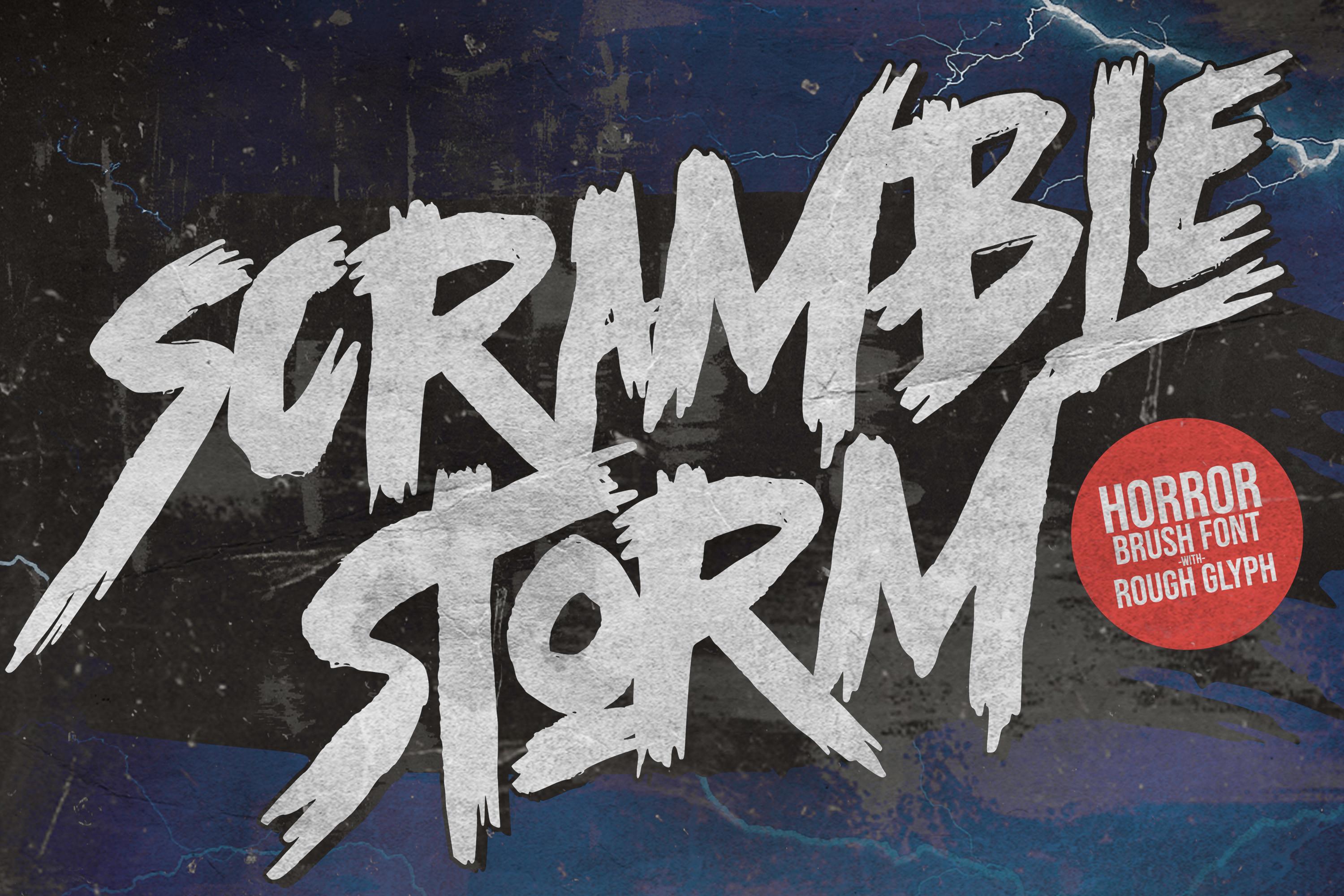
Scramble Storm is a brushed, graffiti-styled display font that has a futuristic, street art vibe. This font is suitable for designs such as t-shirts, sportswear, logos, advertisements, clothing, and more.